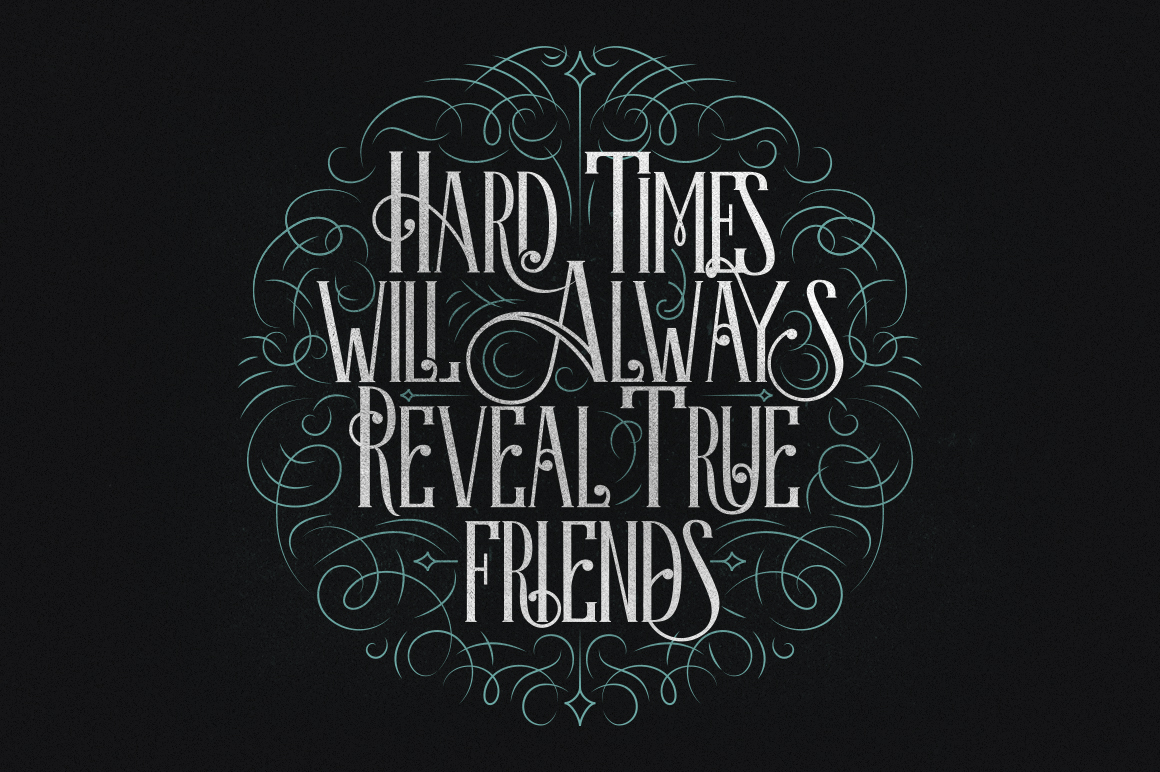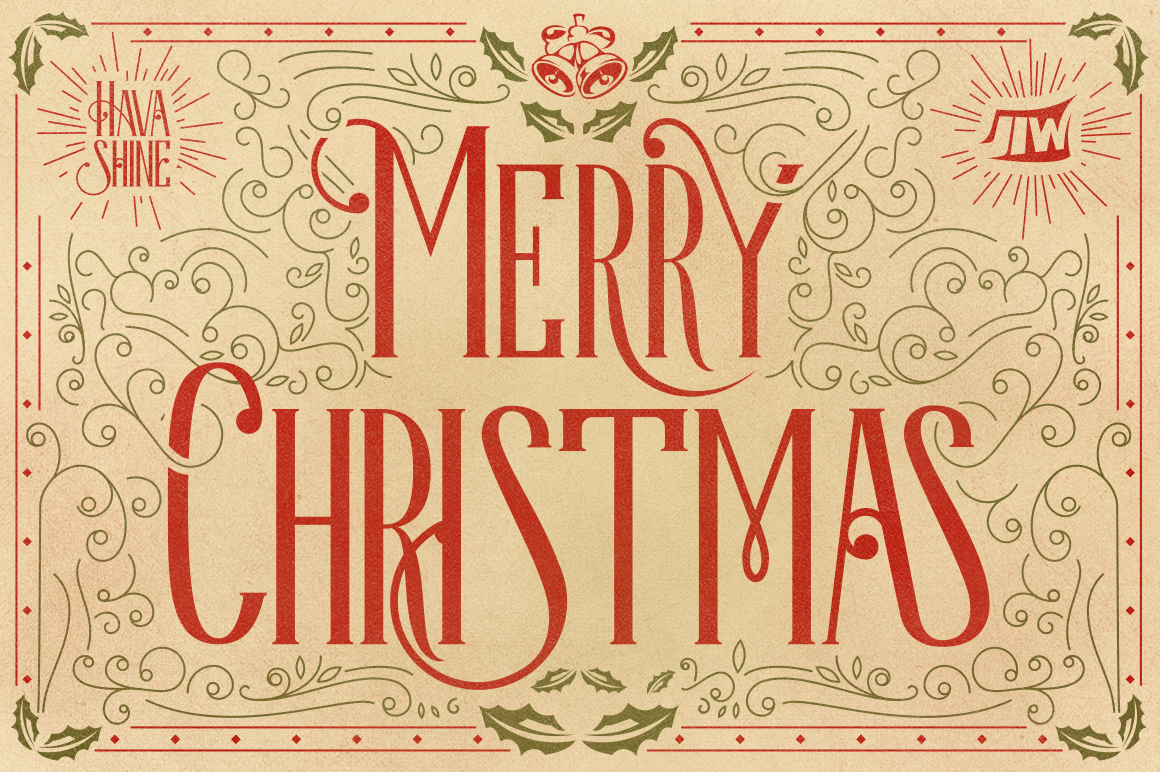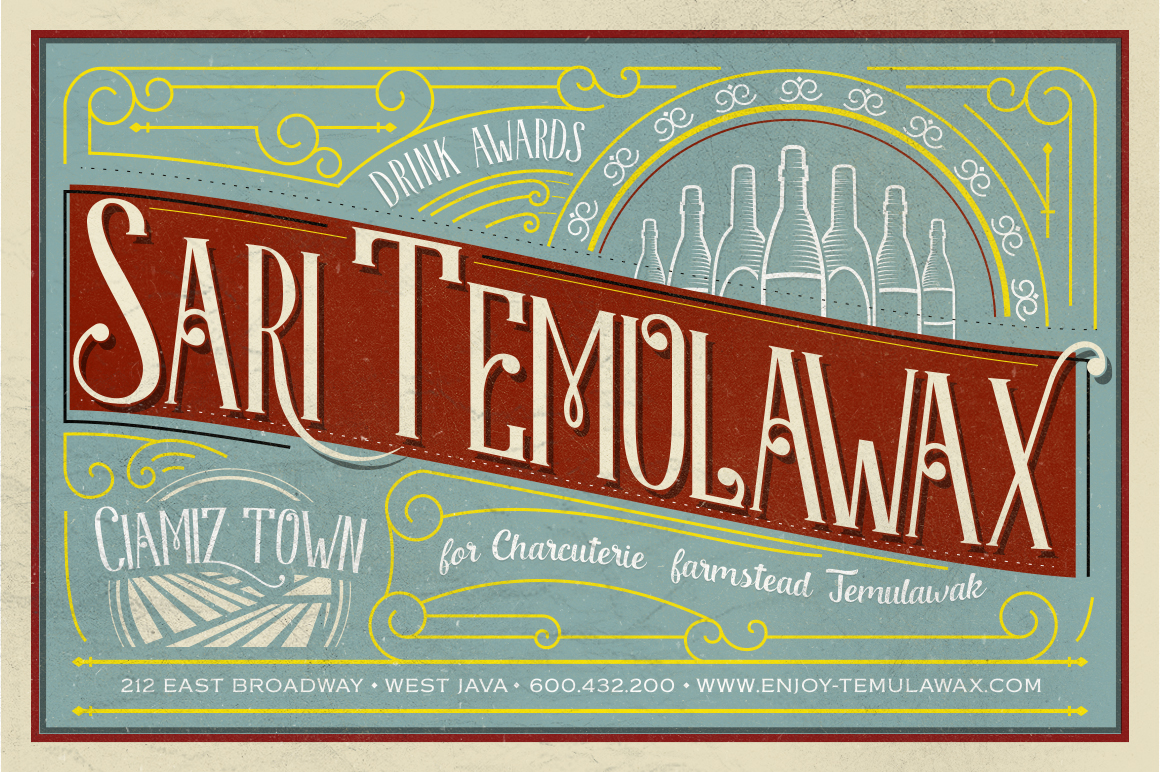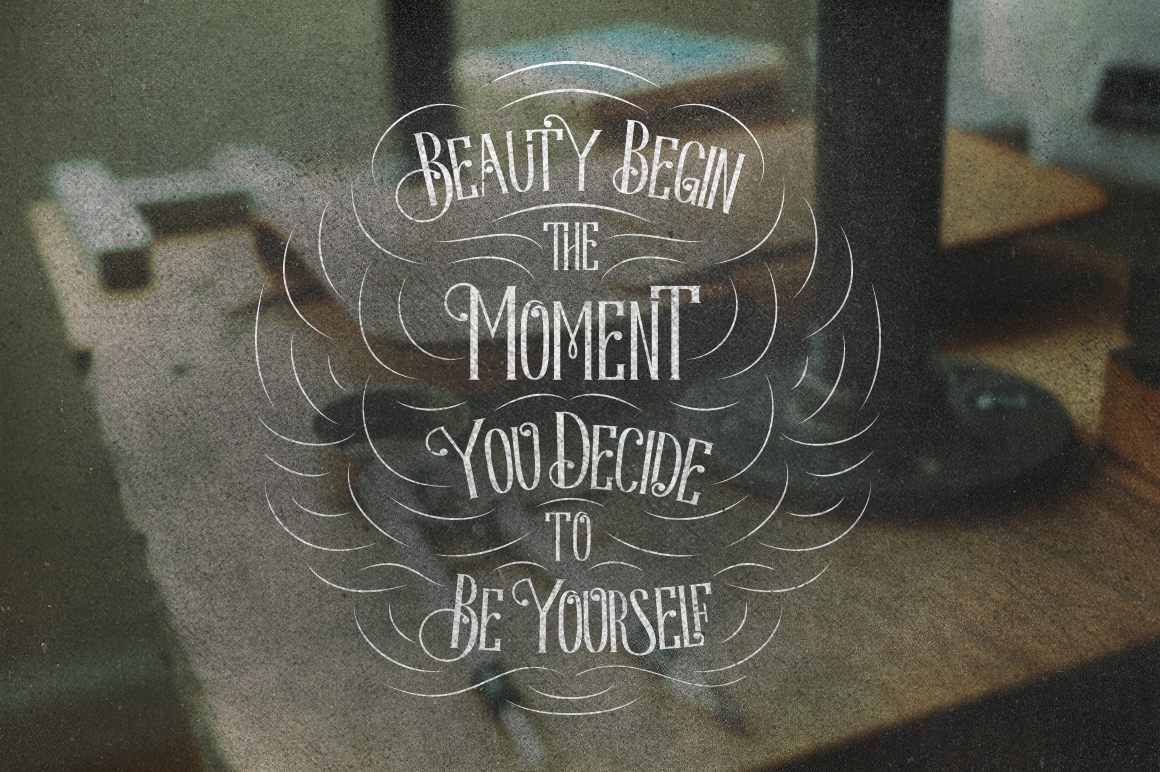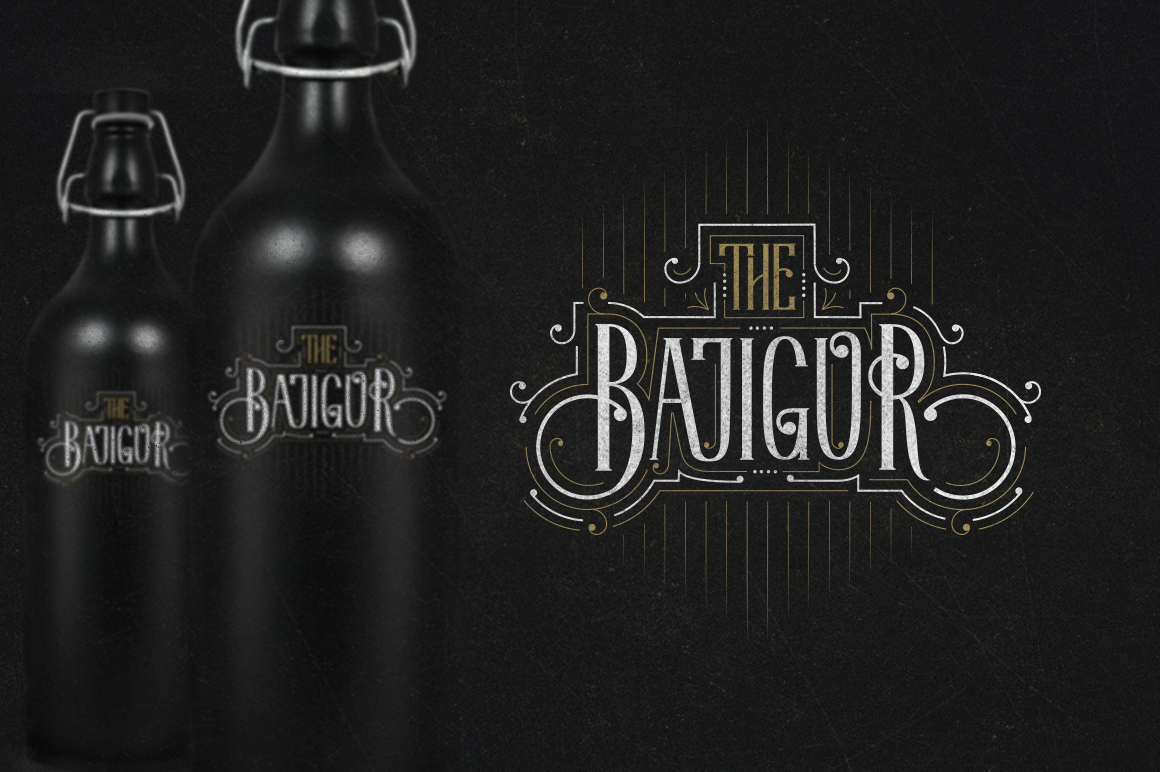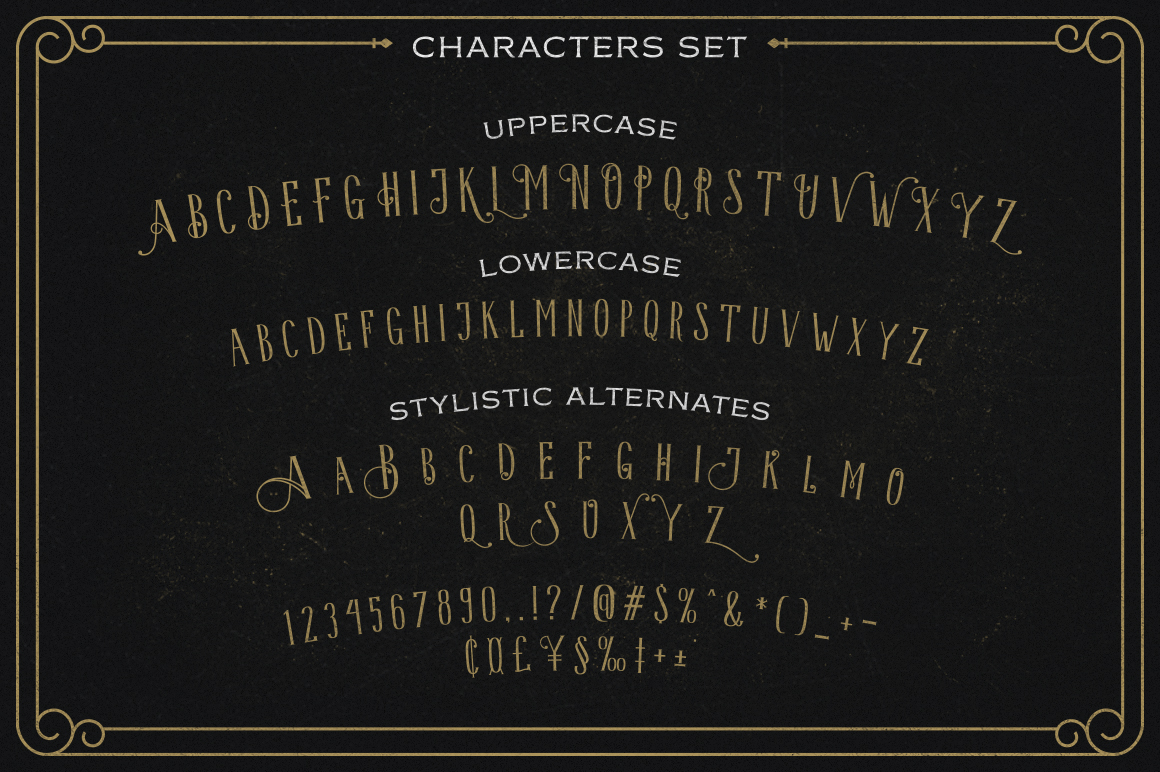
Hava Shine Font: Elevate Your Designs with Luxurious Victorian Flair
In the world of typography, fonts play a crucial role in conveying the tone and aesthetic of a design. For designers and crafters seeking to add a touch of luxury and sophistication to their work, Hava Shine Font is an exceptional choice. Inspired by the ornate details of Victorian style and the sleek lines of Art Deco sensibilities, Hava Shine is a decorative font that embodies the perfect blend of elegance and refinement.
What Makes Hava Shine Font Stand Out?
Hava Shine Font is more than just a decorative font – it’s an experience. With its intricate details and luxurious feel, this font is designed to elevate your designs to new heights. Here are a few key features that make Hava Shine a standout:
- Victorian Inspiration: Hava Shine’s design is rooted in the opulence of the Victorian era, with intricate details and ornate flourishes that evoke a sense of nostalgia and sophistication.
- Art Deco Influence: The font’s sleek lines and geometric shapes are inspired by the Art Deco movement, adding a touch of modernity and glamour to its overall aesthetic.
- Excellent Readability: Despite its decorative nature, Hava Shine reads remarkably well, making it suitable for a wide range of design applications, from headings and titles to body text.
- Character Alternates: Hava Shine features character alternates, allowing designers to add an extra layer of creativity and customization to their work.
Whether you’re a professional designer or a crafty DIY enthusiast, Hava Shine Font is an excellent addition to your toolkit. Here are a few ways you can use Hava Shine to enhance your designs:
- Branding and Packaging: Use Hava Shine to create luxurious brand identities, packaging designs, and label artwork that exudes high-end quality.
- Stationery and Invitations: Add a touch of elegance to your stationery, invitations, and greeting cards with Hava Shine’s ornate details and sophisticated flair.
- Digital Design: Hava Shine is perfect for digital designers looking to create stunning website headers, social media graphics, and advertising campaigns that demand attention.
- Crafting and Scrapbooking: Hava Shine can add a beautiful, handmade touch to your scrapbooking and crafting projects, making them truly special and unique.
Tips for Using Hava Shine Font Effectively
To get the most out of Hava Shine Font, here are a few tips to keep in mind:
- Pair with Neutral Backgrounds: Hava Shine’s ornate details can be overwhelming on busy backgrounds. Pair it with neutral colors to create a striking contrast.
- Experiment with Sizes: Hava Shine’s readability makes it suitable for a range of sizes. Experiment with different font sizes to create visual hierarchy and emphasis.
- Play with Character Alternates: Take advantage of Hava Shine’s character alternates to add an extra layer of creativity and customization to your designs.
Hava Shine Font is a luxurious decorative font that embodies the perfect blend of Victorian elegance and Art Deco sophistication. With its excellent readability, character alternates, and ornate details, Hava Shine is an exceptional choice for designers and crafters seeking to elevate their designs to new heights. Whether you’re working on branding, packaging, stationery, or digital design, Hava Shine is sure to add a touch of luxury and refinement to your work.